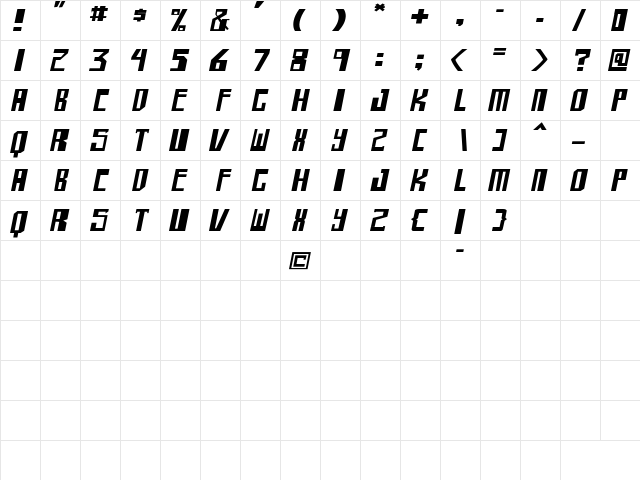
shellhead Bold Italic
Design Context for shellhead Typeface
shellhead is a composed and adaptable typeface that performs quietly and consistently across a wide range of design contexts. Its italic angle brings a sense of urgency and motion to the letterforms. The heavy weight commands attention and anchors typographic hierarchies.